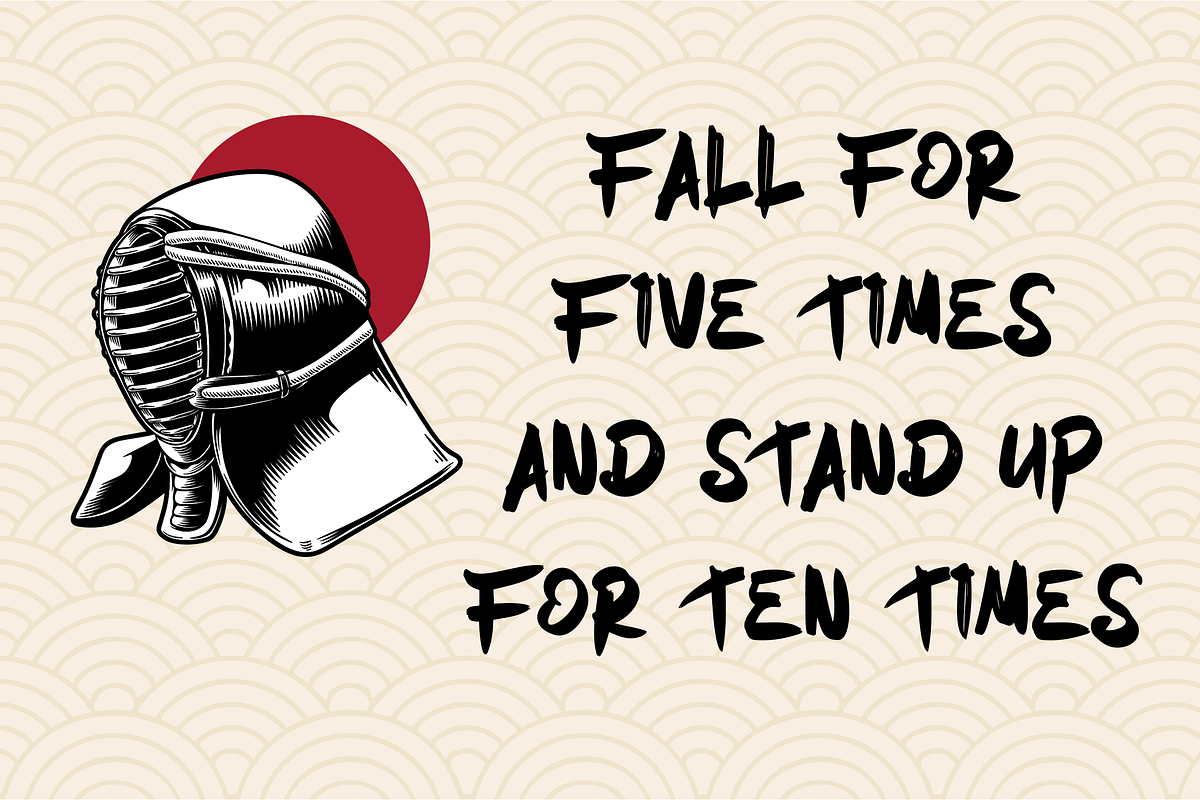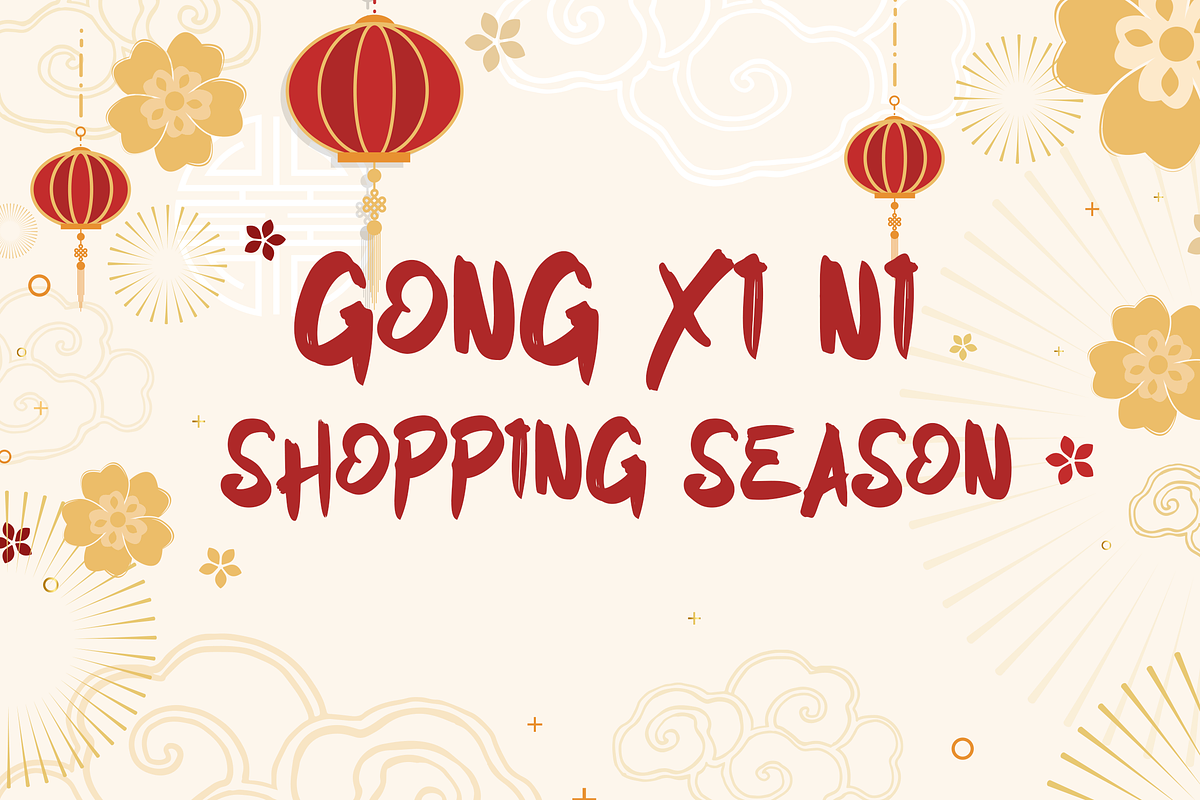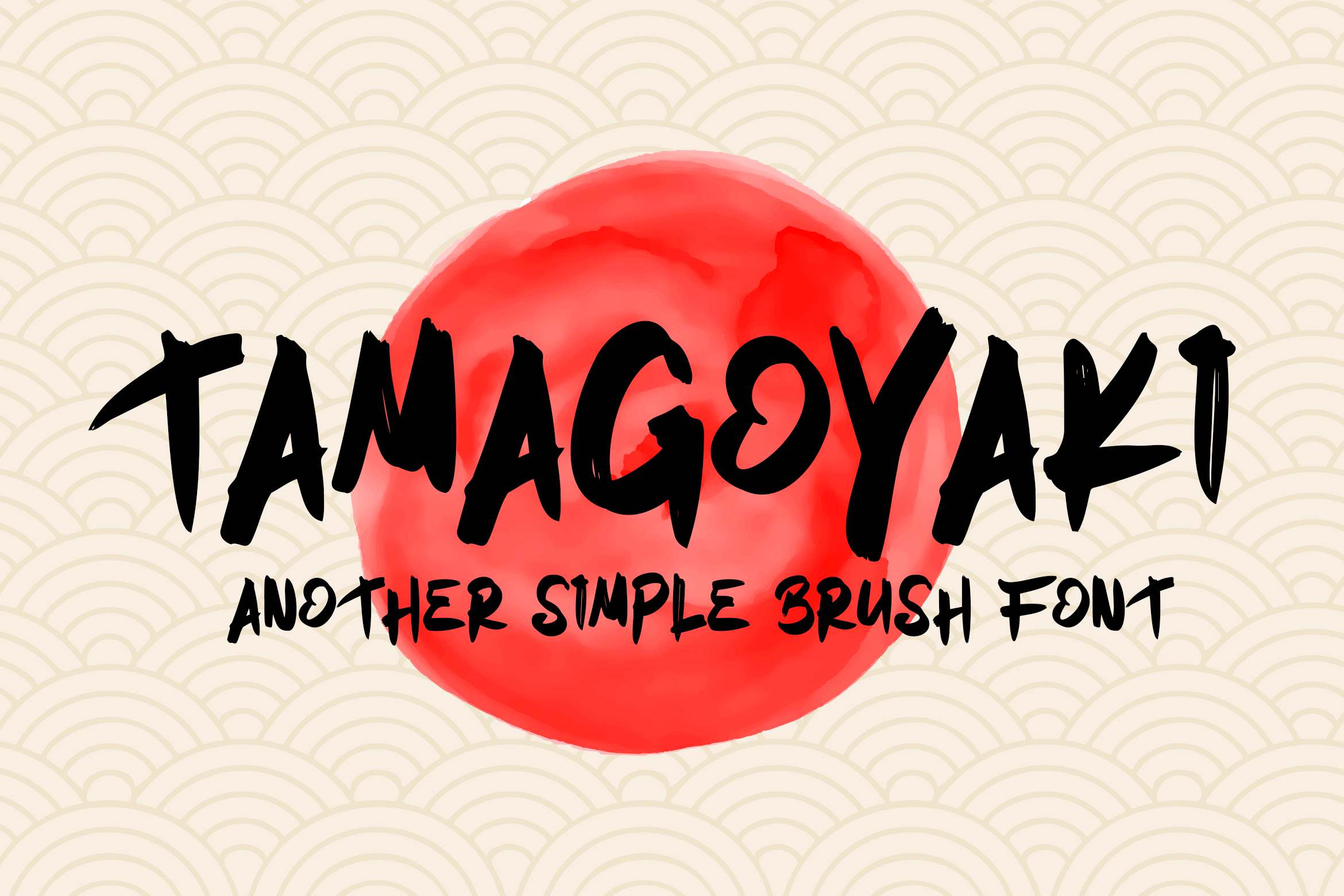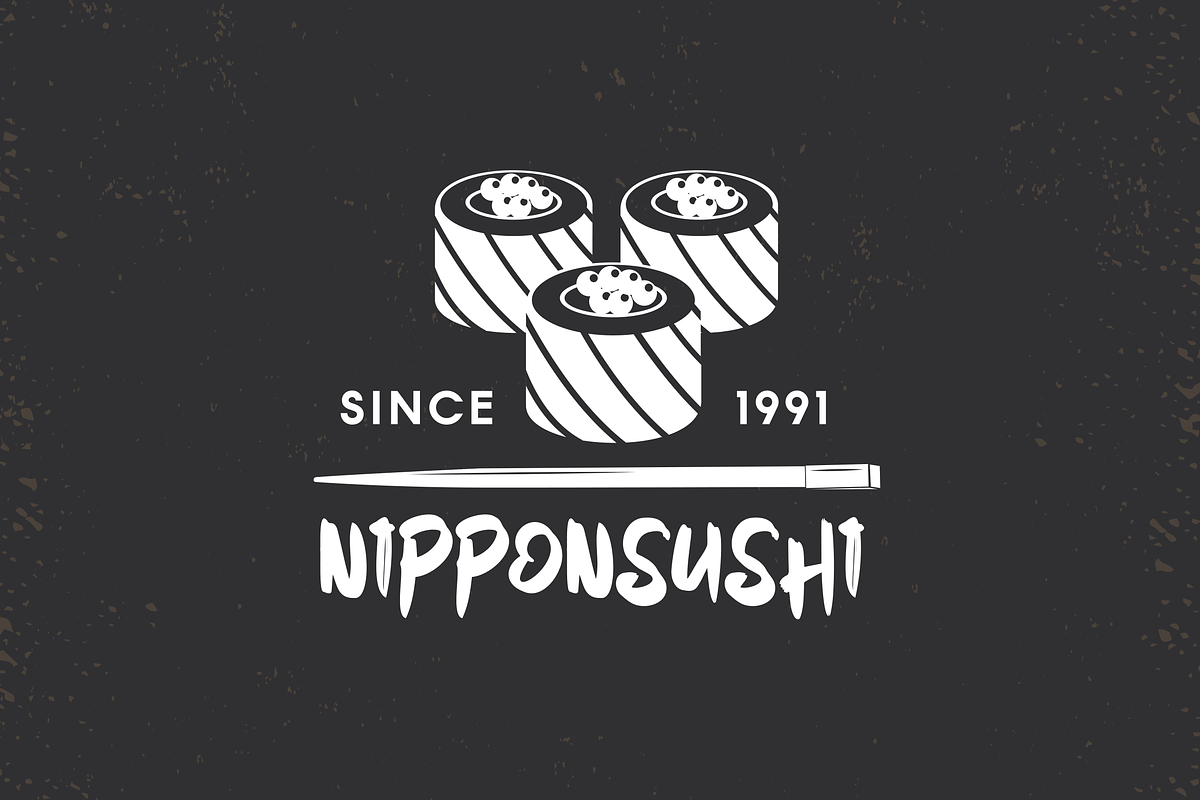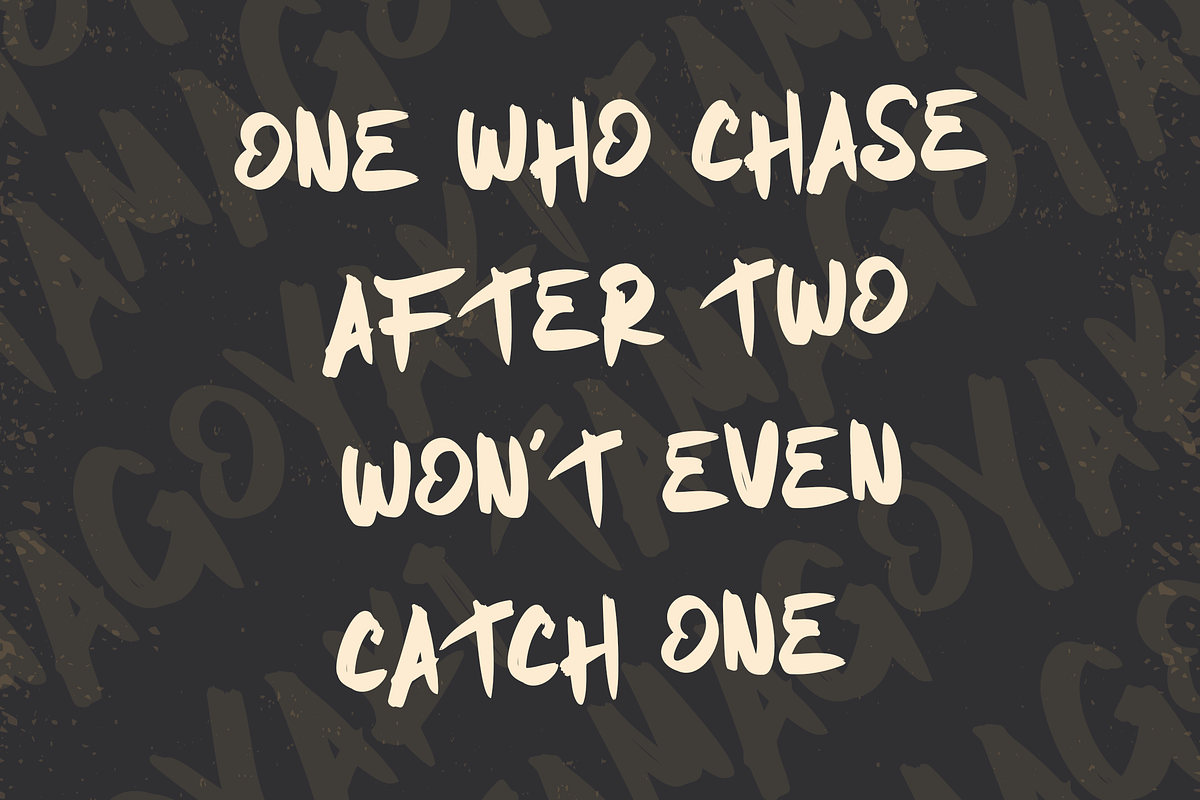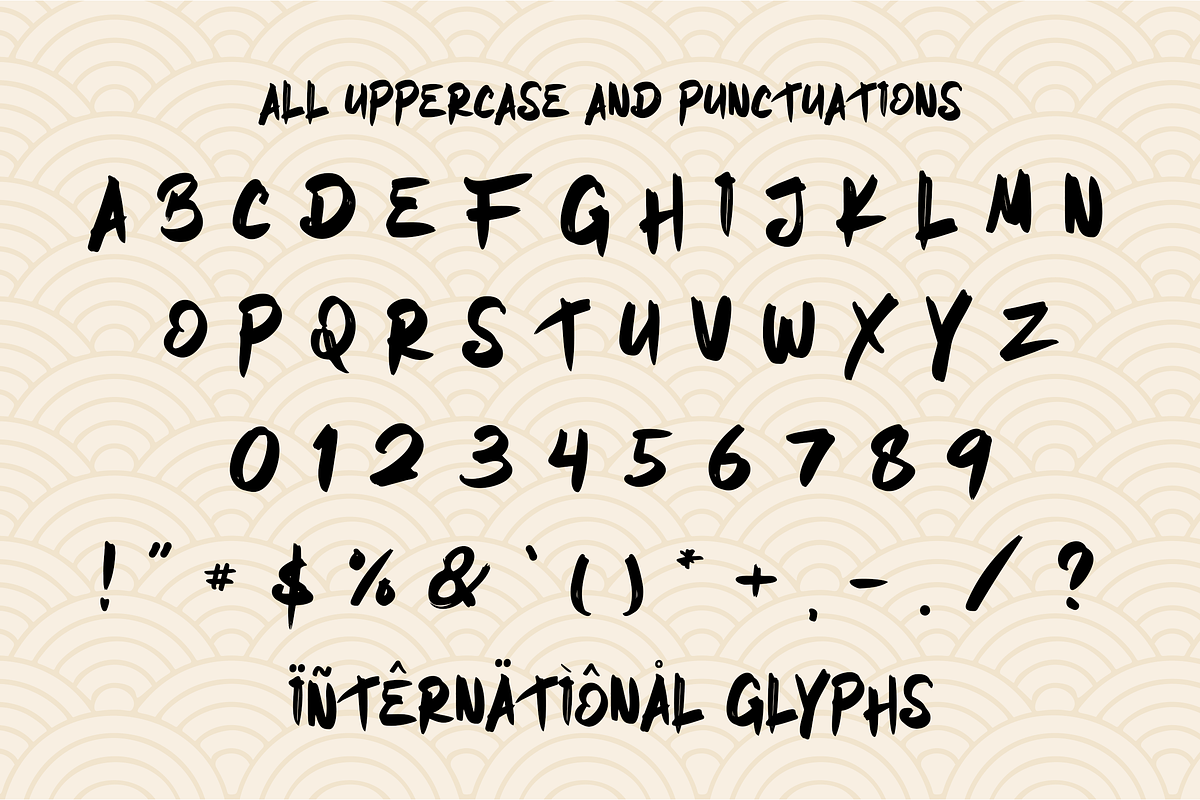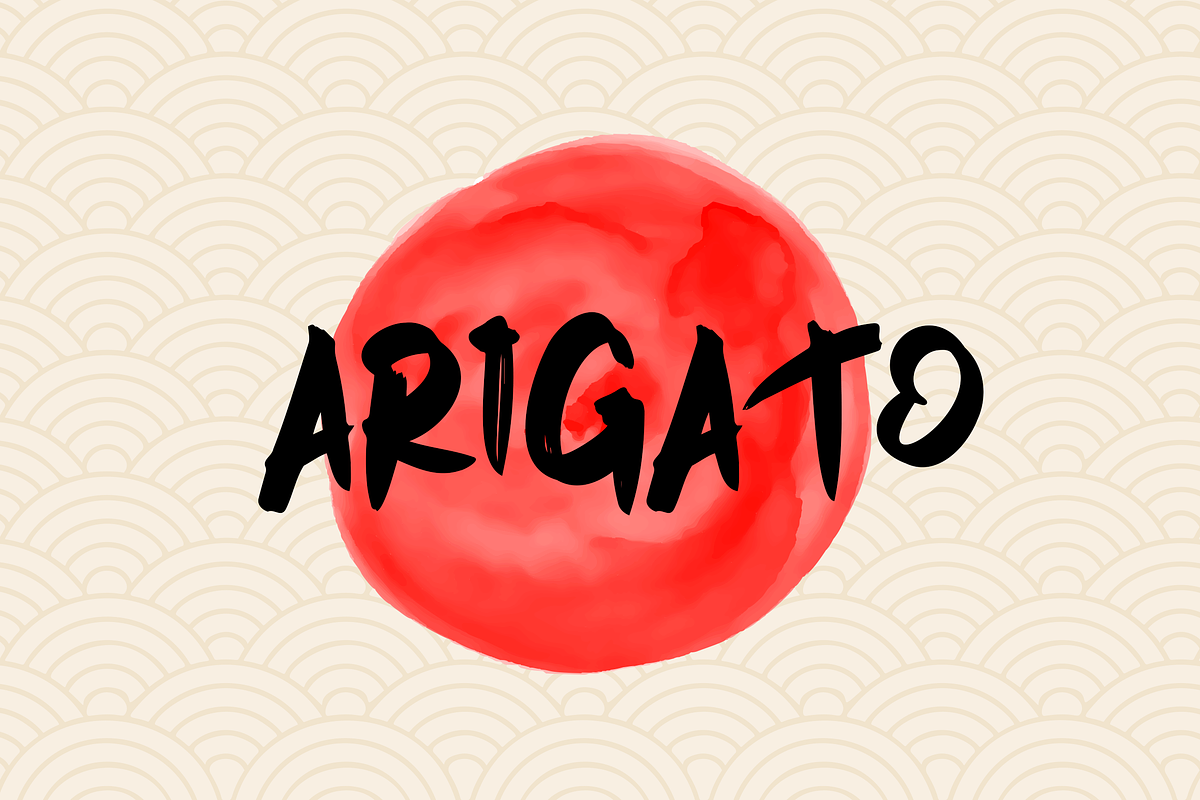
Tamagoyaki | Japanese Style Font
Tamagoyaki is an inspired natural Japanese brush font that created handmade with excellent quality. Each stroke shows a natural and cultural elements in each of the glyphs. This font is suitable for those who like Japanese style design, besides this font is also suitable for those of you who have a Japanese restaurant, Japanese clothing brand, Japanese arts, and business purpose related with Japanese culture.
This Tamagoyaki is perfect for your branding and marketing!
- All Uppercase letters